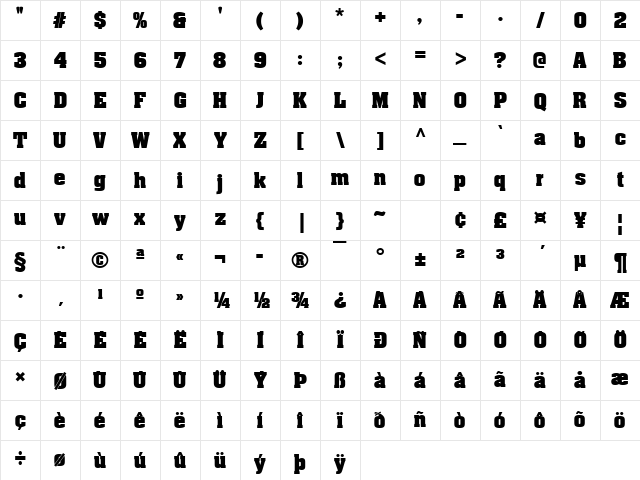
AachenPBol Regular
Design Context for AachenPBol
AachenPBol is a composed and adaptable typeface that performs quietly and consistently across a wide range of design contexts.
Pro Tip: Use AachenPBol in both headline and body roles to test its range before committing to a single application.